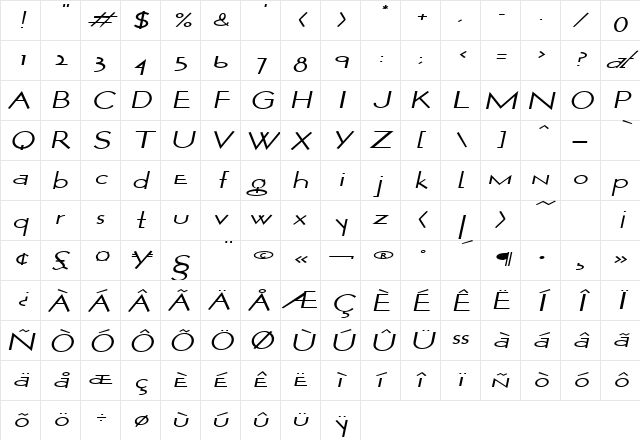
WurkerExtended Oblique
Design Context for WurkerExtended
WurkerExtended is a composed and adaptable typeface that performs quietly and consistently across a wide range of design contexts. The slanted form adds forward momentum and visual energy.
Pro Tip: Use WurkerExtended for emphasis, pull quotes, and subheadings where its slanted energy can add rhythm to the layout.